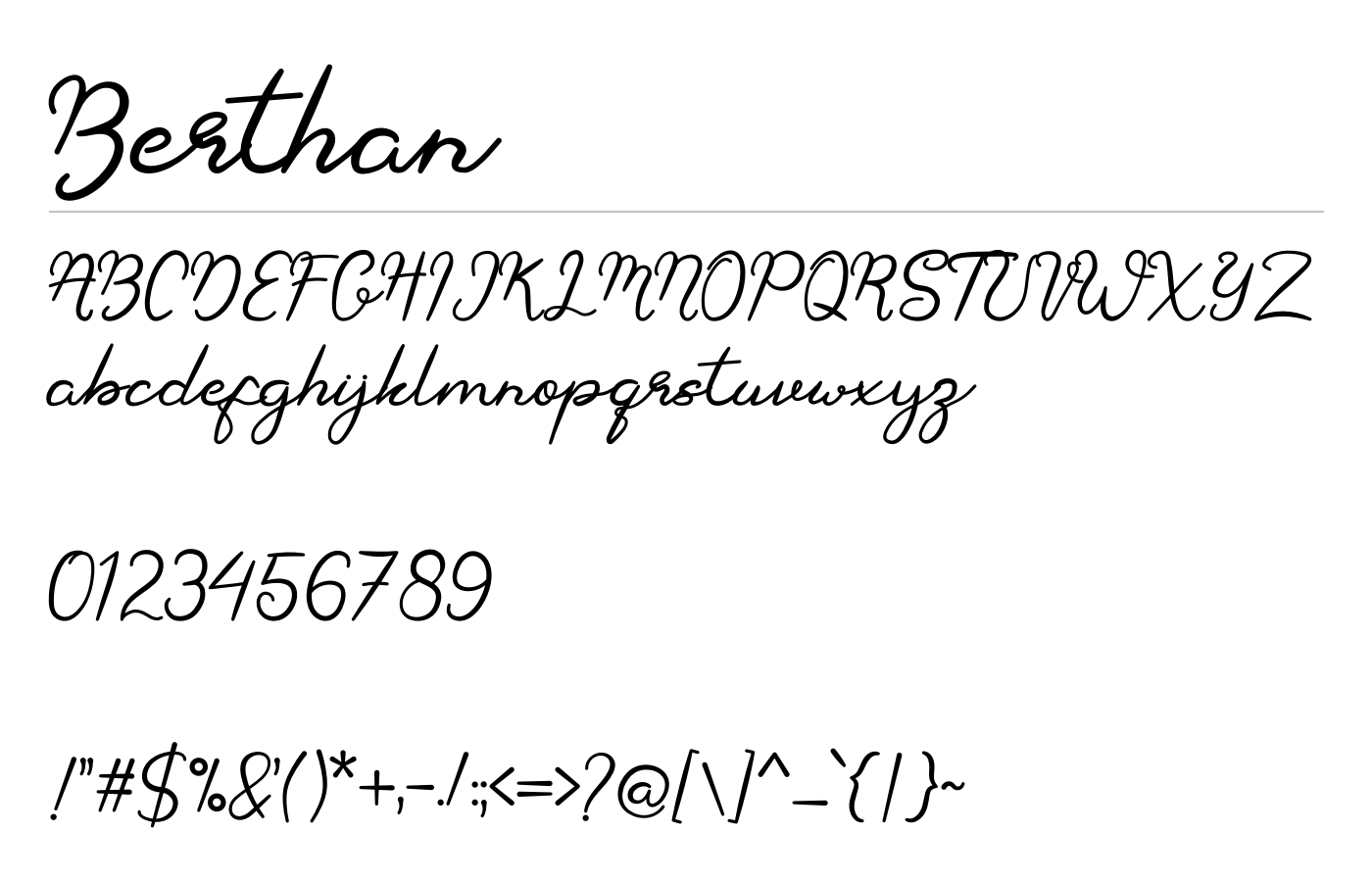
Berthan is a light and elegant script font with a smooth, handwritten style that combines classic charm with modern simplicity. Its flowing letterforms and gentle curves make it perfect for designs that aim to feel personal and refined, such as invitations, branding, and stylish editorial projects. This font works especially well in contexts where a graceful, approachable touch is desired without sacrificing readability.
Berthan Font
About Berthan Font
| Font family | Berthan Font |
| Designer | Bayu Suwirya |